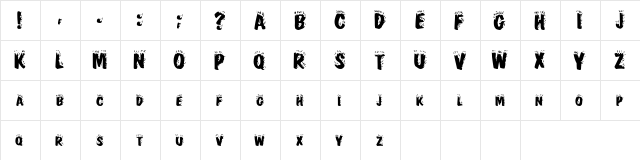
Crackling Fire Plain Font Preview
Crackling Fire Plain
Crackling Fire Plain Font Details
Design Context for Crackling Fire Typeface
Crackling Fire is a composed and adaptable typeface that performs quietly and consistently across a wide range of design contexts.